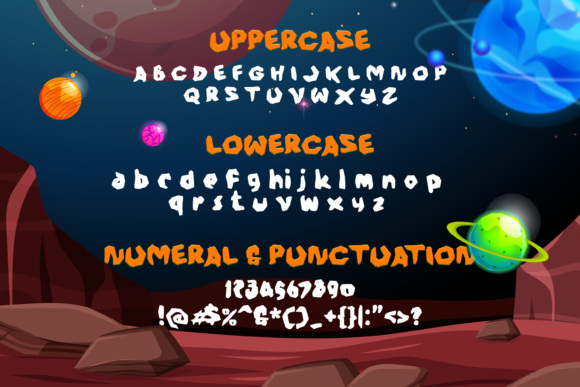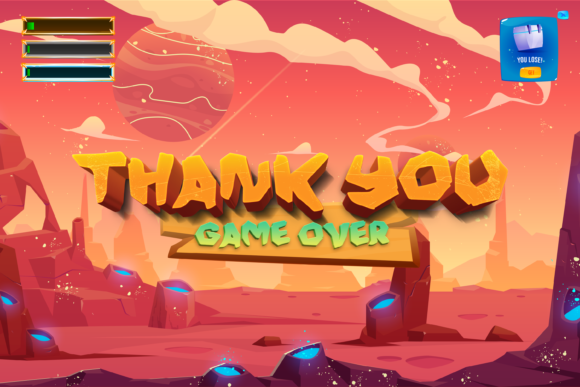
Introduction to Rockgan Font
Have you ever been brainstorming a creative project, pouring over ideas and fonts, only to stumble upon that one perfect match that makes everything click? For designers, this moment is pure magic. It’s the moment when all the pieces come together, and your vision is brought to life. For me, that moment came when I discovered the Rockgan Font.
With its carefree attitude and playful edge, the Rockgan Font is the perfect addition to any design project. Whether you’re creating a logo, poster, or social media post, this font is sure to add a touch of personality and whimsy. And the best part? It’s a high-quality design resource that’s available for free download, complete with a transparent background, making it easy to integrate into your design.
As a valuable resource for designers, the Rockgan Font offers endless possibilities for creative expression. Its unique style and versatility make it an ideal choice for a wide range of design applications, from web design to print materials. So why not give it a try and see how the Rockgan Font can elevate your next project?
Key Features of Rockgan Font
- Unique, modern font style with a transparent background, perfect for digital and print designs
- Includes a range of characters, including uppercase and lowercase letters, numbers, and punctuation
- Designed to be highly legible at various sizes, with a recommended size range of 12-48 points
- Resolution-independent, ensuring crisp and clear text at high resolutions (up to 300 DPI)
- Perfect for use in logos, titles, headings, and body text in various design contexts
Honest Review: Rockgan Font
I recently had the chance to work with the Rockgan Font, and I must say it’s been a great addition to my design arsenal. This font has all the makings of a high-quality design resource.
- ✨ The Rockgan Font is incredibly versatile, making it perfect for a wide range of creative projects.
- ✨ The font features a transparent background, making it easy to layer and customize.
- ⚠️ The font may not be suitable for extremely large or small text sizes, as it can become difficult to read.
- ⚠️ Some users may find the font’s unique style to be too bold or overwhelming.
Overall, I’m really impressed with the Rockgan Font. It’s a high-quality design resource that can add a lot of depth and character to your creative project. With its versatility and free download option, it’s definitely worth checking out.
Tips for Getting the Most Out of Rockgan Font
For the best results, use the Rockgan Font in conjunction with other high-quality design resources, such as images and graphics. You can also experiment with different font sizes and styles to create a unique and eye-catching design.
The Rockgan Font is a versatile design resource that can be used in a wide range of creative projects, from logos and branding to infographics and presentations.